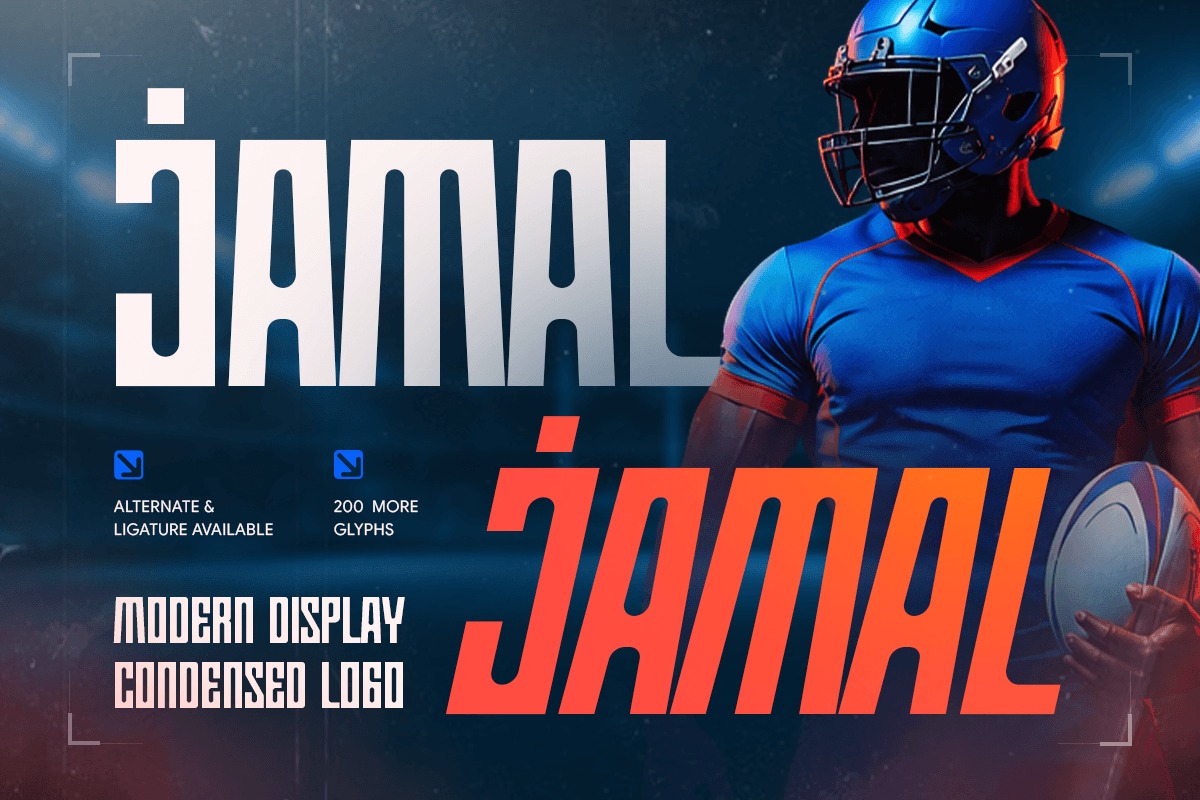
Jamal – Condensed Sport Font
Jamal – Condensed Sport Font is a modern display condensed logo font designed to deliver bold character, clarity, and strong visual impact. Featuring narrow letterforms, clean geometric construction, and a contemporary display style, Jamal is perfect for logo design, branding, headlines, posters, packaging, editorial layouts, and modern creative projects.
Combining streamlined condensed typography with a bold display aesthetic, Jamal creates a distinctive and memorable visual identity. Its space-efficient structure maximizes visual impact while maintaining excellent readability, making it ideal for creative studios, startups, agencies, technology brands, entertainment projects, and modern corporate identities.
Jamal – Modern Display Condensed Logo Font Features:
Modern condensed display style with bold branding aesthetics
Narrow letterforms with clean and balanced proportions
Ideal for logos, branding, headlines, posters, packaging, and editorials
Uppercase, lowercase, numerals, and punctuation included
Excellent readability with space-efficient construction
Perfect for startups, agencies, technology, entertainment, and corporate branding
Create a strong and memorable identity with Jamal – the modern condensed display font crafted for impactful logo and branding design.